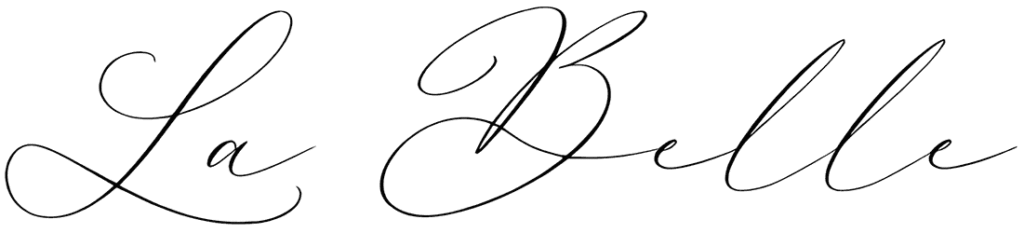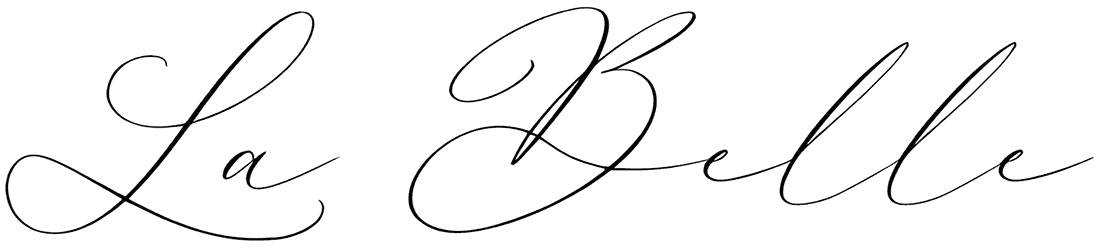
La Belle Font
La Belle is a script font that comes with incredibly soft and delicate characters, thus carrying a sense of approachability, professionalism, precision, or personalization.
Aside from not supporting numbers, this calligraphy font can give you a wonderful opportunity for creating high-end logos, billboards, product packaging, brand descriptions, or headlines. The number of fonts available in the RB archive exceeds your imagination, so don’t hesitate to check out our library.